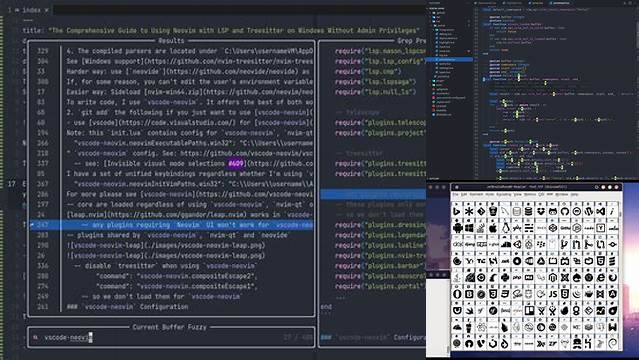
Neovim Nerd Fonts On Windows: Install & Configure Guide
Hey guys! Ever felt like your Neovim setup on Windows is missing that extra oomph? You know, that visual flair that makes coding not just productive but also a joy? Well, the secret sauce might just be Nerd Fonts. These awesome fonts pack a ton of glyphs, icons, and symbols that can seriously level up your Neovim experience, especially when paired with cool plugins like NvimTree or a fancy statusline. But let's be real, getting Nerd Fonts to play nice with Neovim on Windows can sometimes feel like wrestling an octopus. Fear not! This guide is here to walk you through the process, step by step, so you can get your Neovim looking slick and professional in no time.
What are Nerd Fonts and Why Should You Care?
Let's start with the basics. Nerd Fonts are basically regular fonts that have been patched to include a massive set of icons. Think of it as adding a superpower to your font! These icons come from popular icon sets like Font Awesome, Material Design Icons, Devicons, and many more. Why is this a big deal for Neovim? Because these icons can be used by plugins to display file types, Git statuses, and all sorts of other useful information in a visually appealing way. Instead of just seeing plain text, you'll get visual cues that make it much easier to navigate your code and understand what's going on. For example, you might see a little JavaScript icon next to your .js
files, a Git branch icon in your statusline, or even a cute little folder icon in your file explorer. It's all about making your workflow more intuitive and, let's be honest, way more aesthetically pleasing. Without Nerd Fonts, you're stuck with plain, boring text. With Nerd Fonts, your Neovim setup transforms into a powerful, visually rich coding environment. The difference is night and day, guys. You'll wonder how you ever lived without them! Seriously, once you go Nerd Fonts, you never go back. It's like upgrading from dial-up to fiber optic – the speed and the visual clarity are just unmatched. Plus, it shows you're serious about your coding setup. A well-configured Neovim environment with Nerd Fonts is a badge of honor, a sign that you're a true coding ninja. So, if you're ready to take your Neovim game to the next level, buckle up and let's dive in!